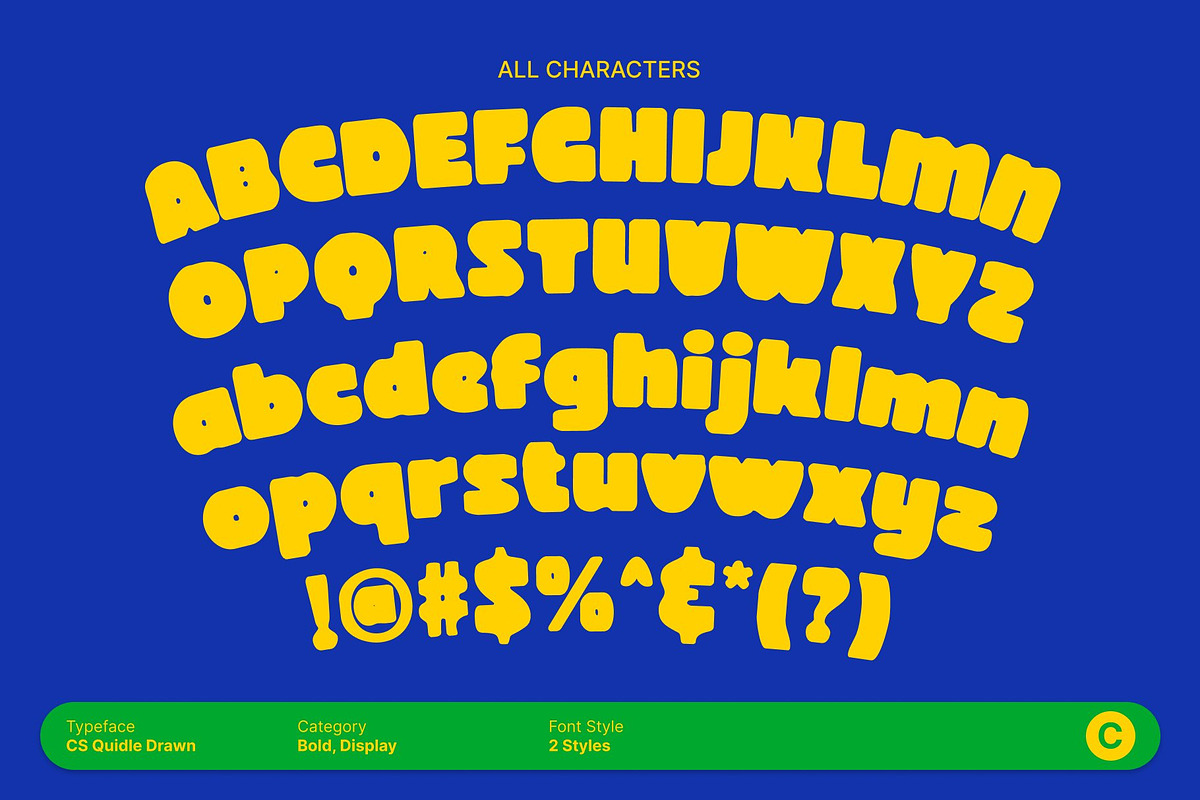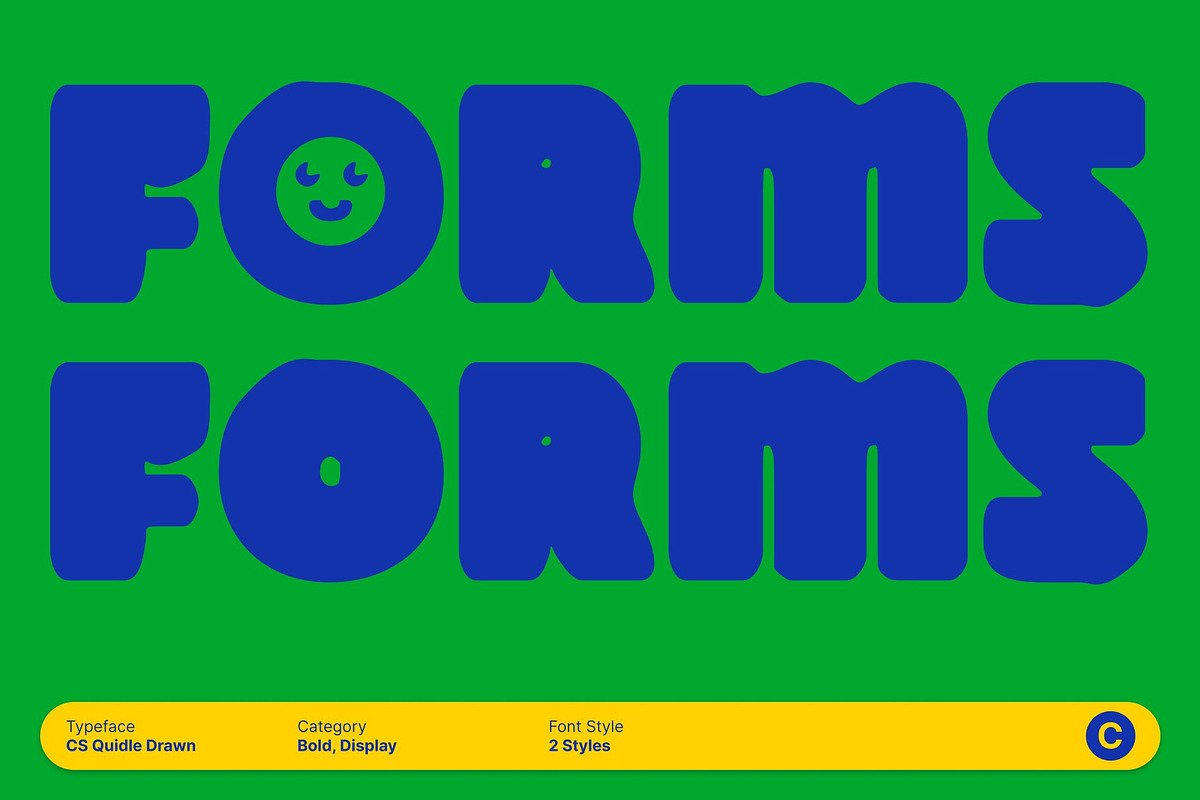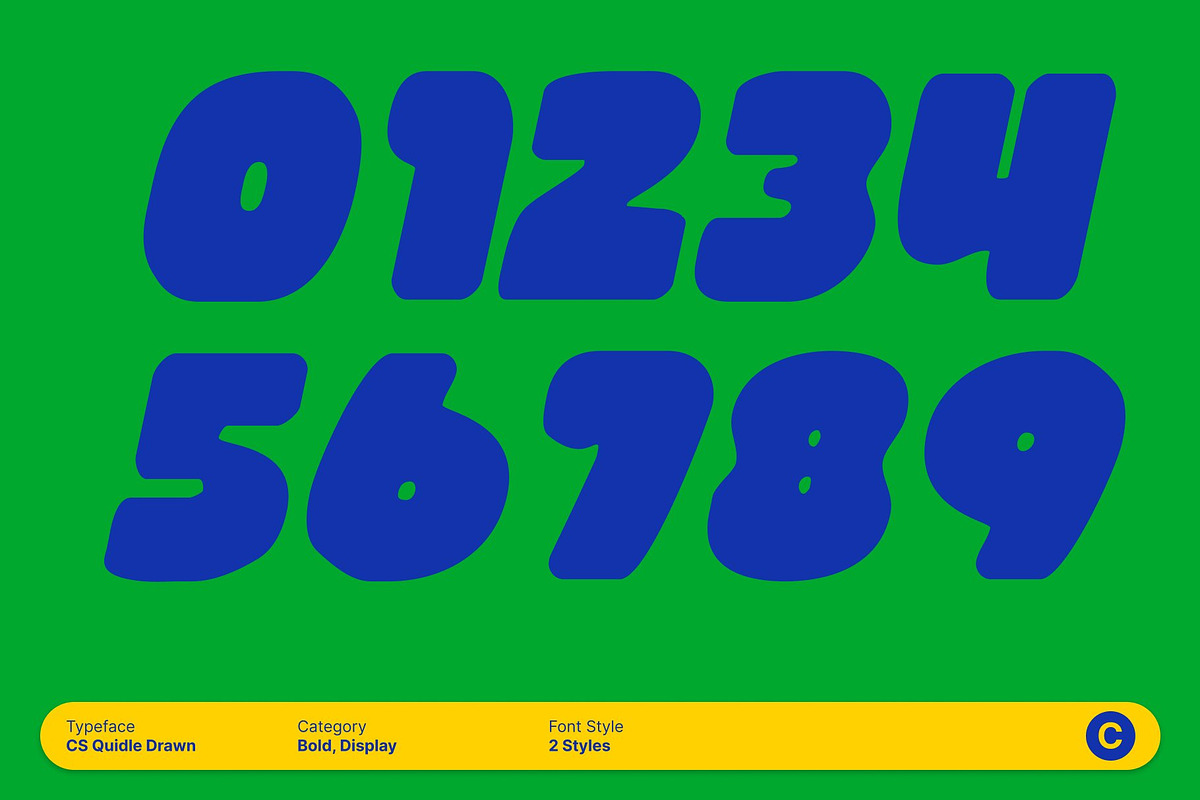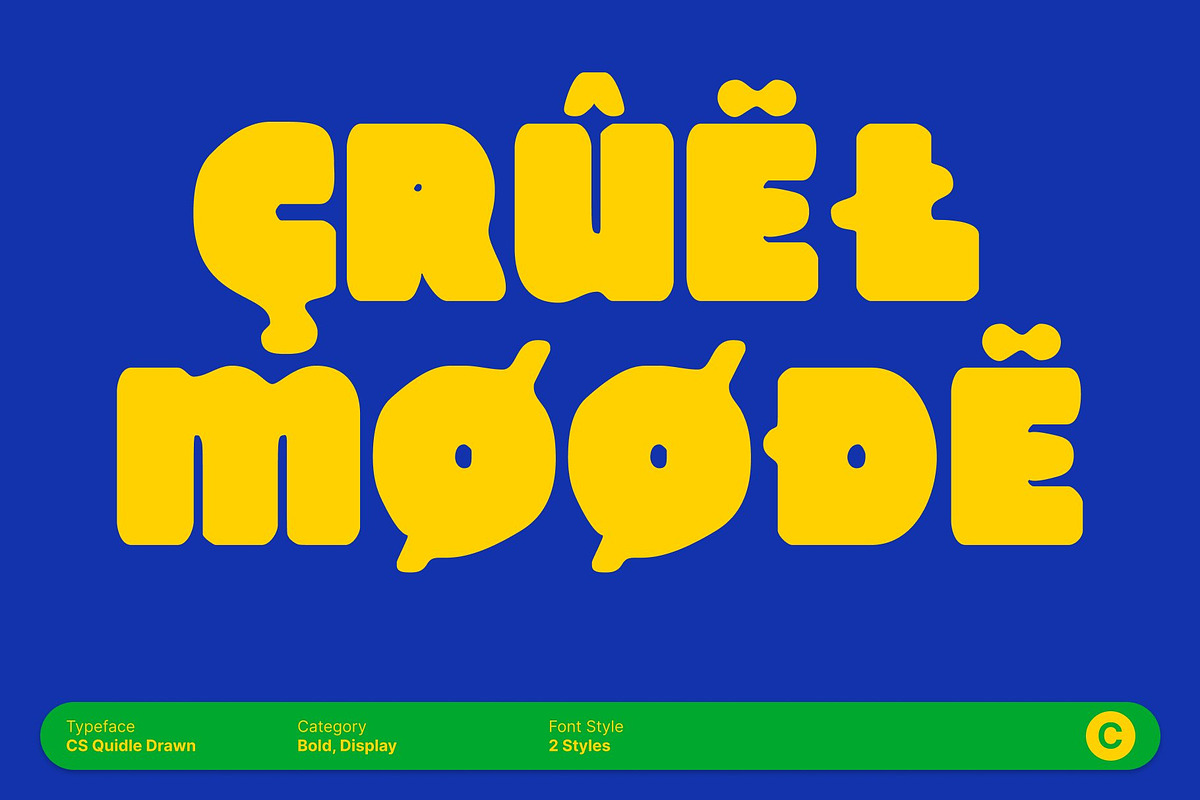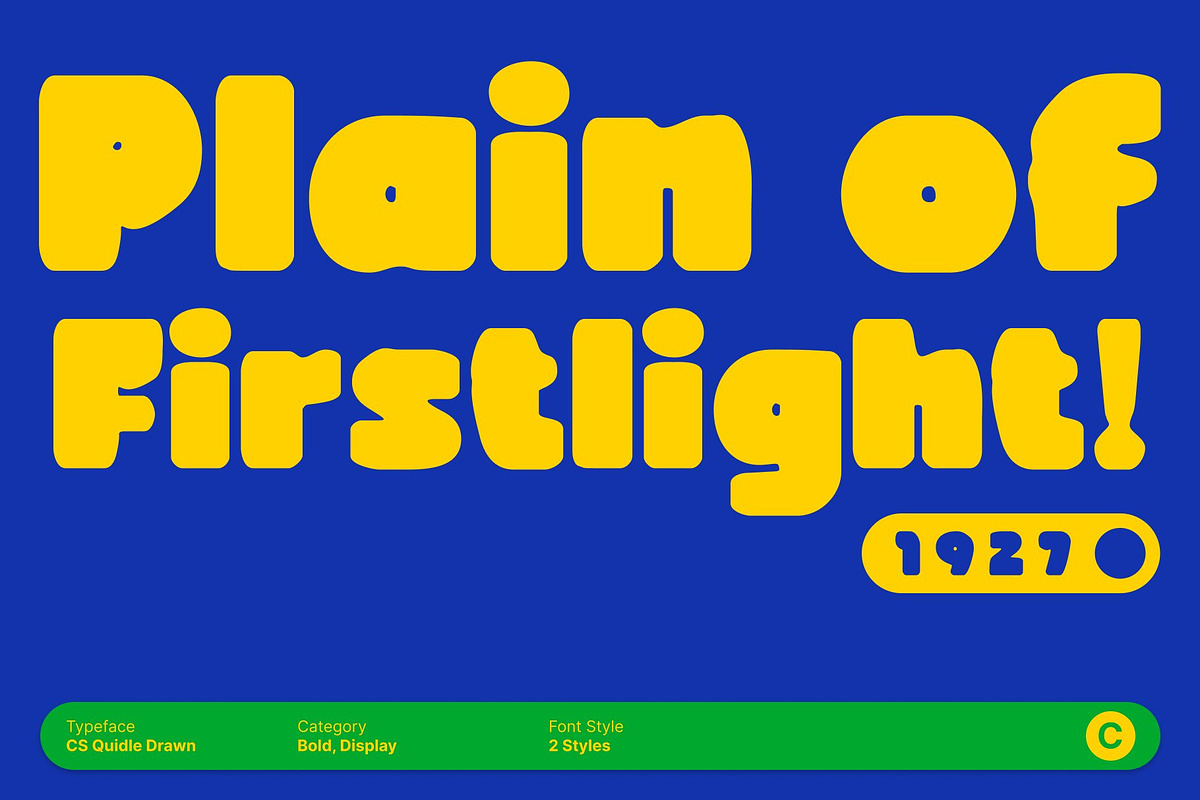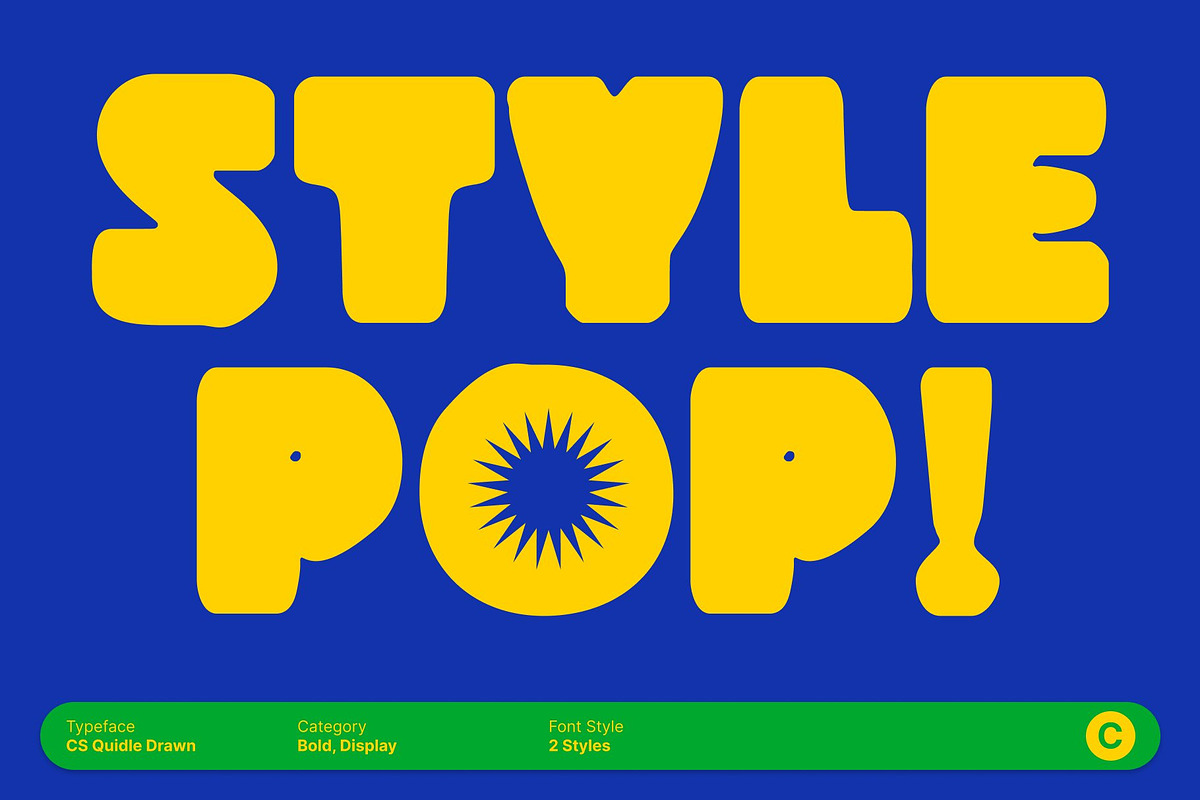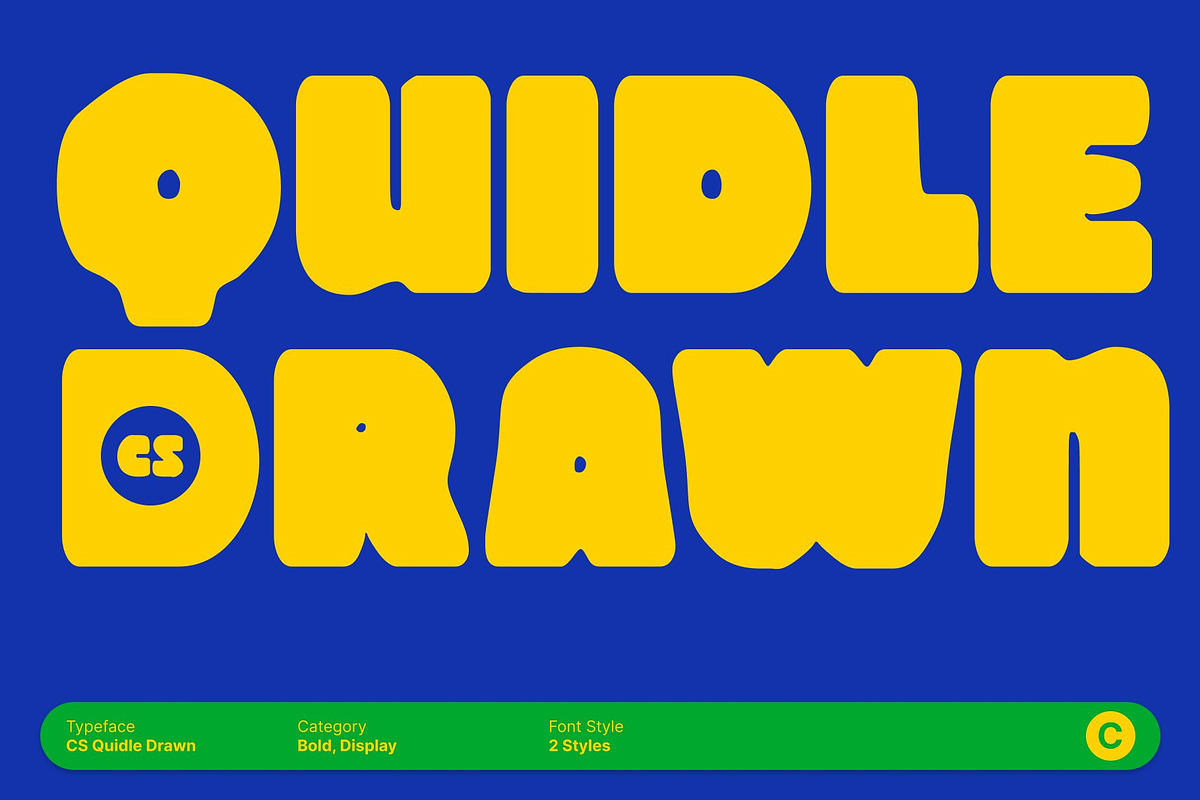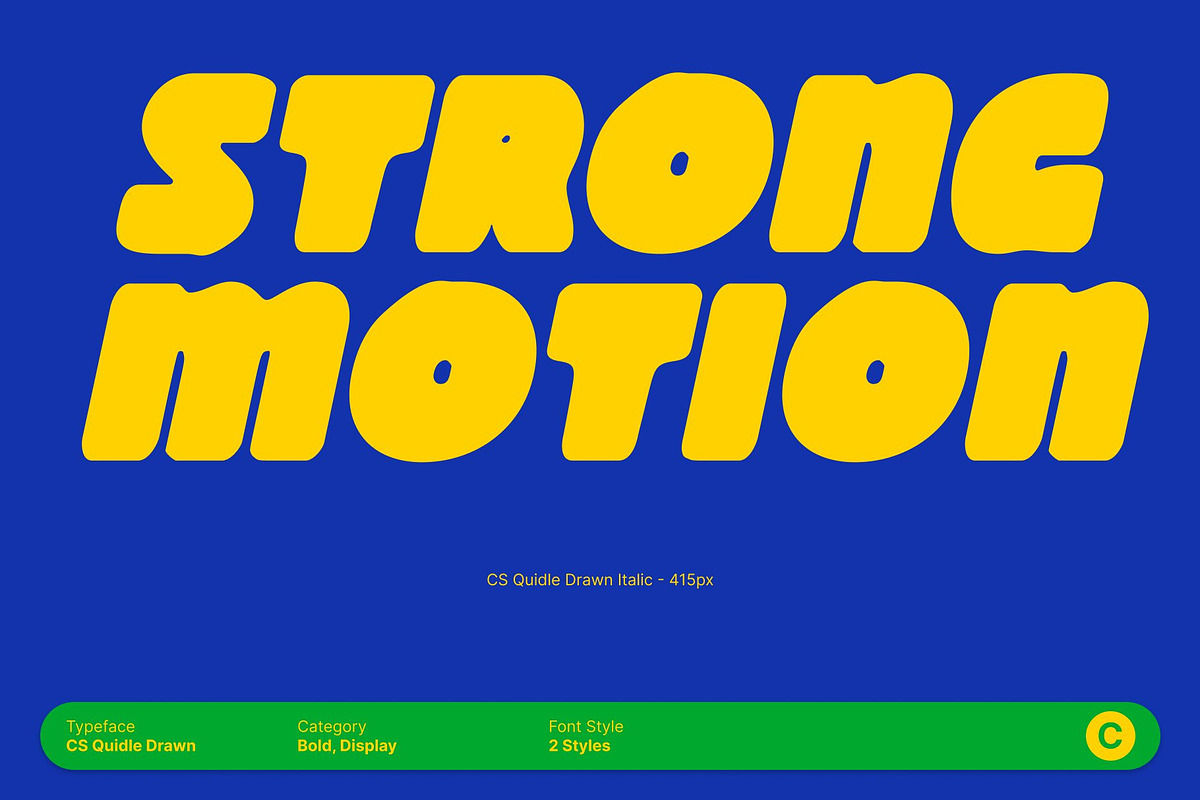
CS Quidle Drawn
CS Quidle Drawn – Bold Charm with Playful Personality
Chunky Display Font with Hand-Drawn Texture This is a bold, chunky display font designed to make a strong and cheerful statement. Its confident geometric foundation is softened by rounded, approachable letterforms, while the drawn effect introduces a unique textured shape that feels lively and handcrafted. This combination creates a modern yet cute style full of charm and character.
Playful Quirks with Expressive Drawn Details Each letter features subtle quirks enhanced by the hand-drawn texture, adding warmth and visual interest. These organic imperfections give the font a whimsical personality, making headlines, posters, and packaging designs feel more engaging, creative, and fun.
Thick Strokes for Strong, Friendly Impact With its thick strokes and clean structure, this font delivers excellent readability while maintaining a bold presence. The drawn effect prevents the shapes from feeling rigid, adding softness and personality that help the font stand out in social media graphics, branding, and product packaging.
Versatile for Playful and Bold Creative Projects Despite its chunky appearance, this font adapts easily to a wide range of creative uses. From playful branding and advertising to eye-catching editorial layouts, this font balances confident impact with friendly, hand-crafted charm perfect for designers who want bold visuals with a joyful, human touch.